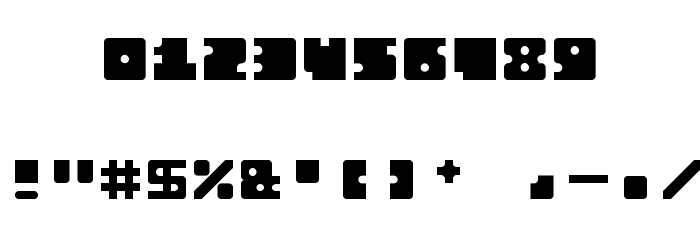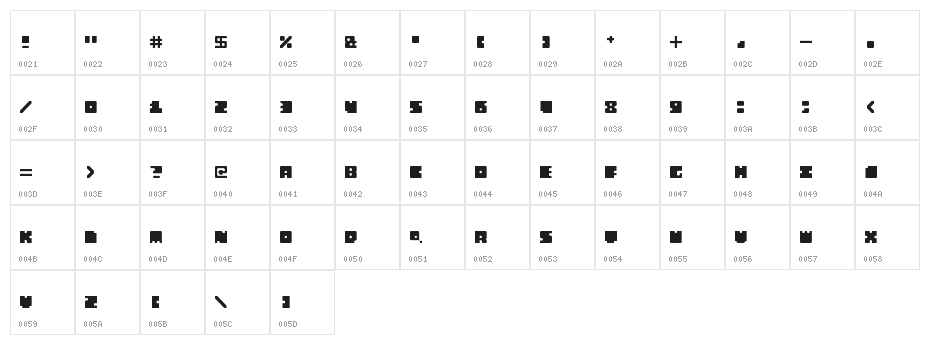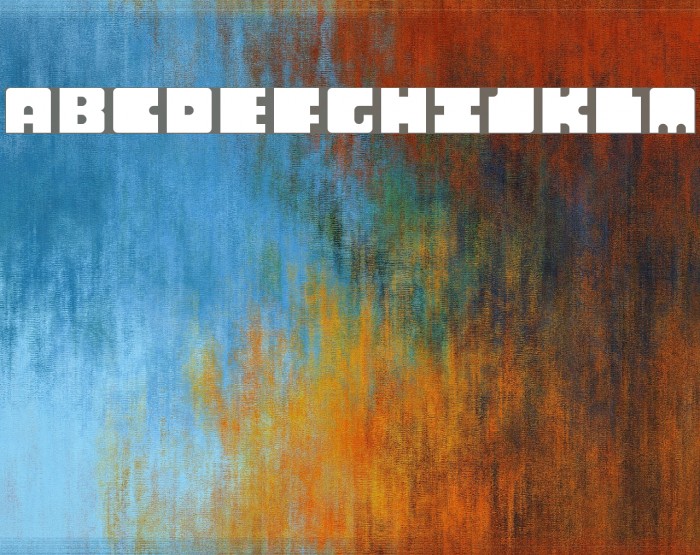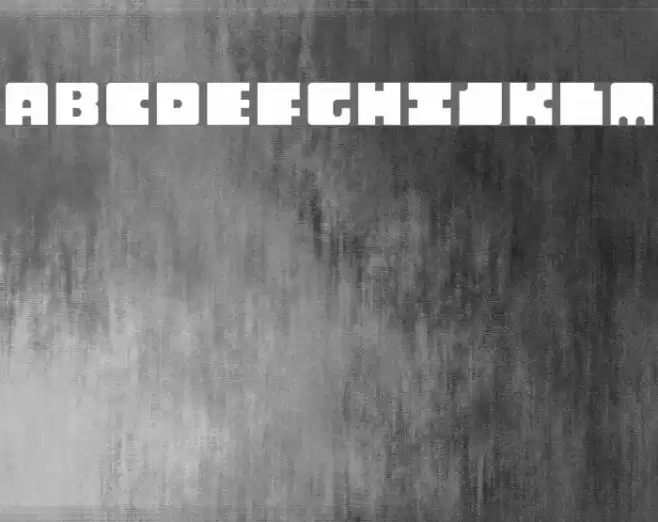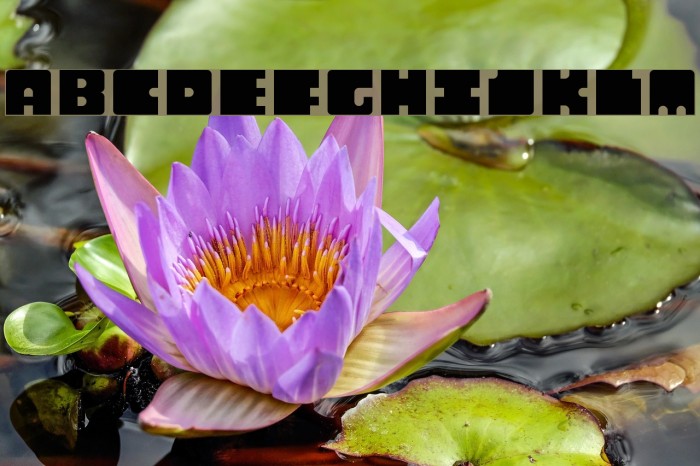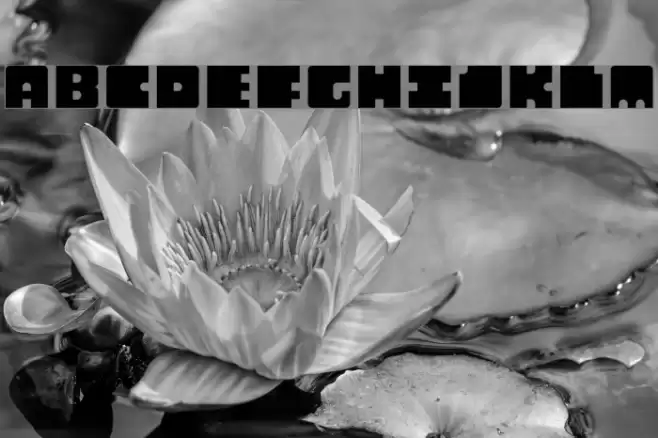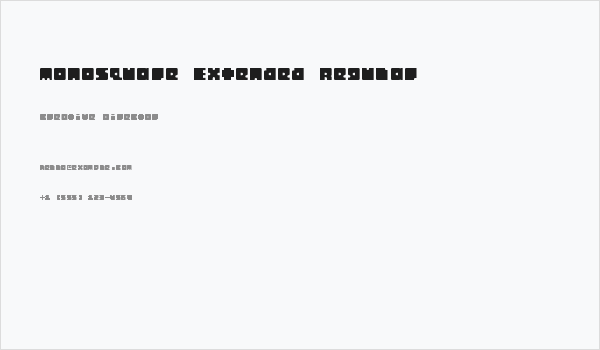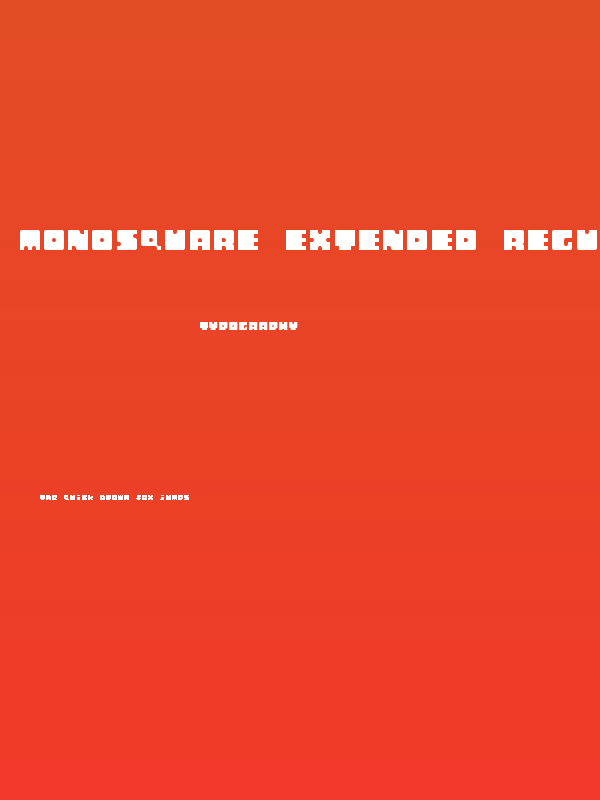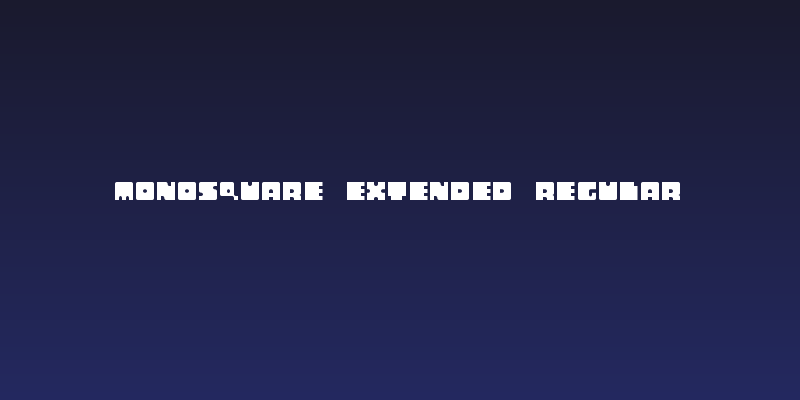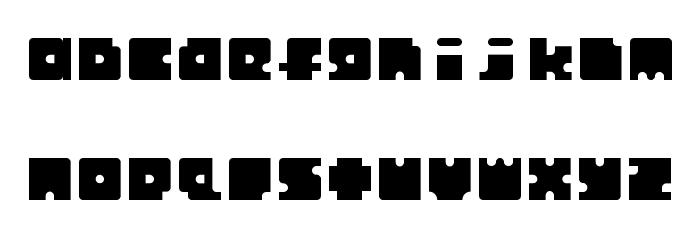
Monosquare Extended Regular Font
Monosquare Extended Regular Description
This font features a bold, geometric design with a distinctly modern and futuristic aesthetic. Each character is constructed with a square-like structure, creating a uniform and cohesive appearance. The letters are wide and blocky, with minimal contrast in stroke thickness, emphasizing a strong and impactful presence. The font's extended width enhances its readability and makes it suitable for attention-grabbing headlines or titles. Its unique style is characterized by sharp angles and clean lines, giving it a digital or tech-inspired feel. The consistent spacing between characters ensures clarity and legibility, even at smaller sizes.
| Proposed Projects | Ideal for technology branding, digital media, video game titles, and futuristic-themed designs. |